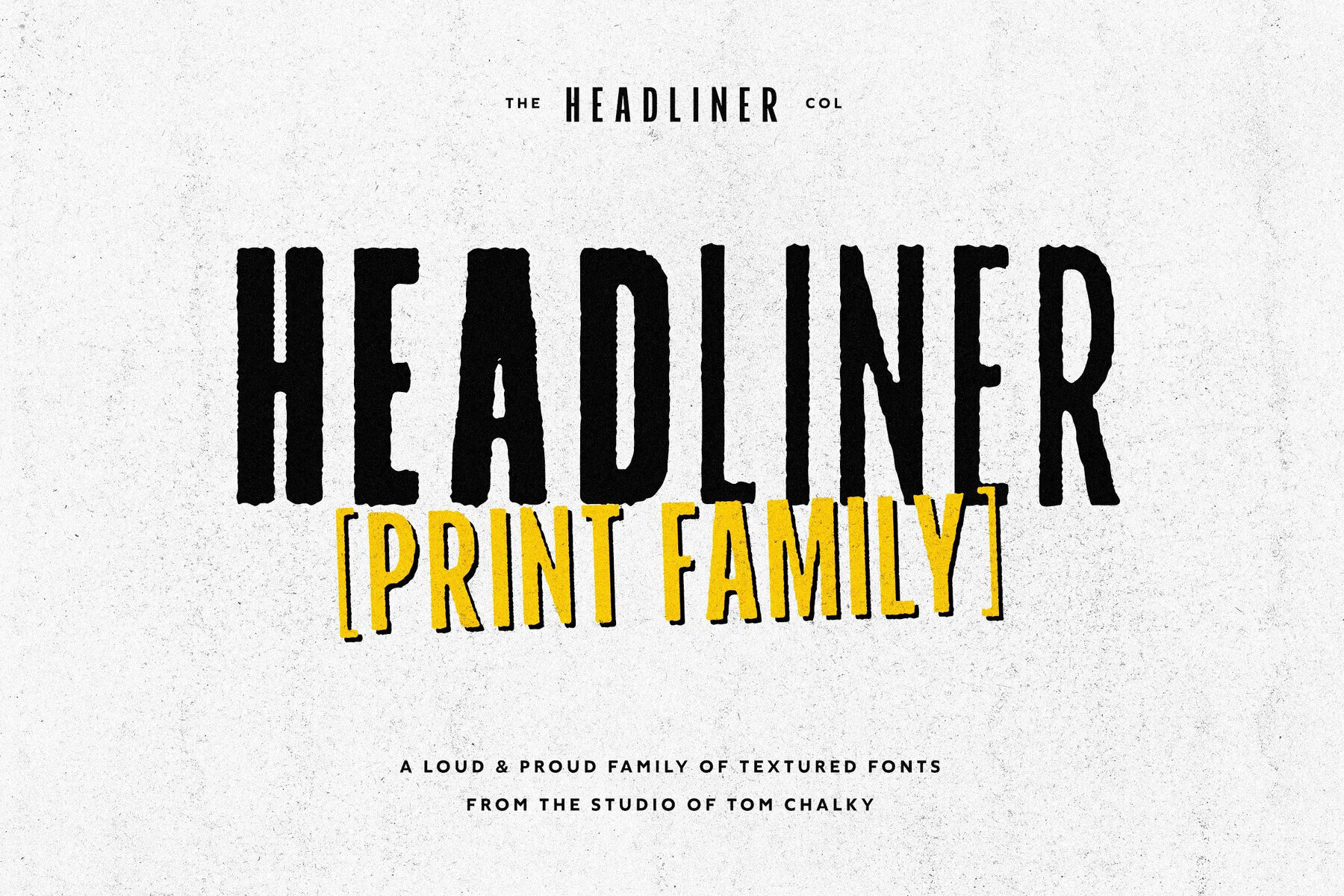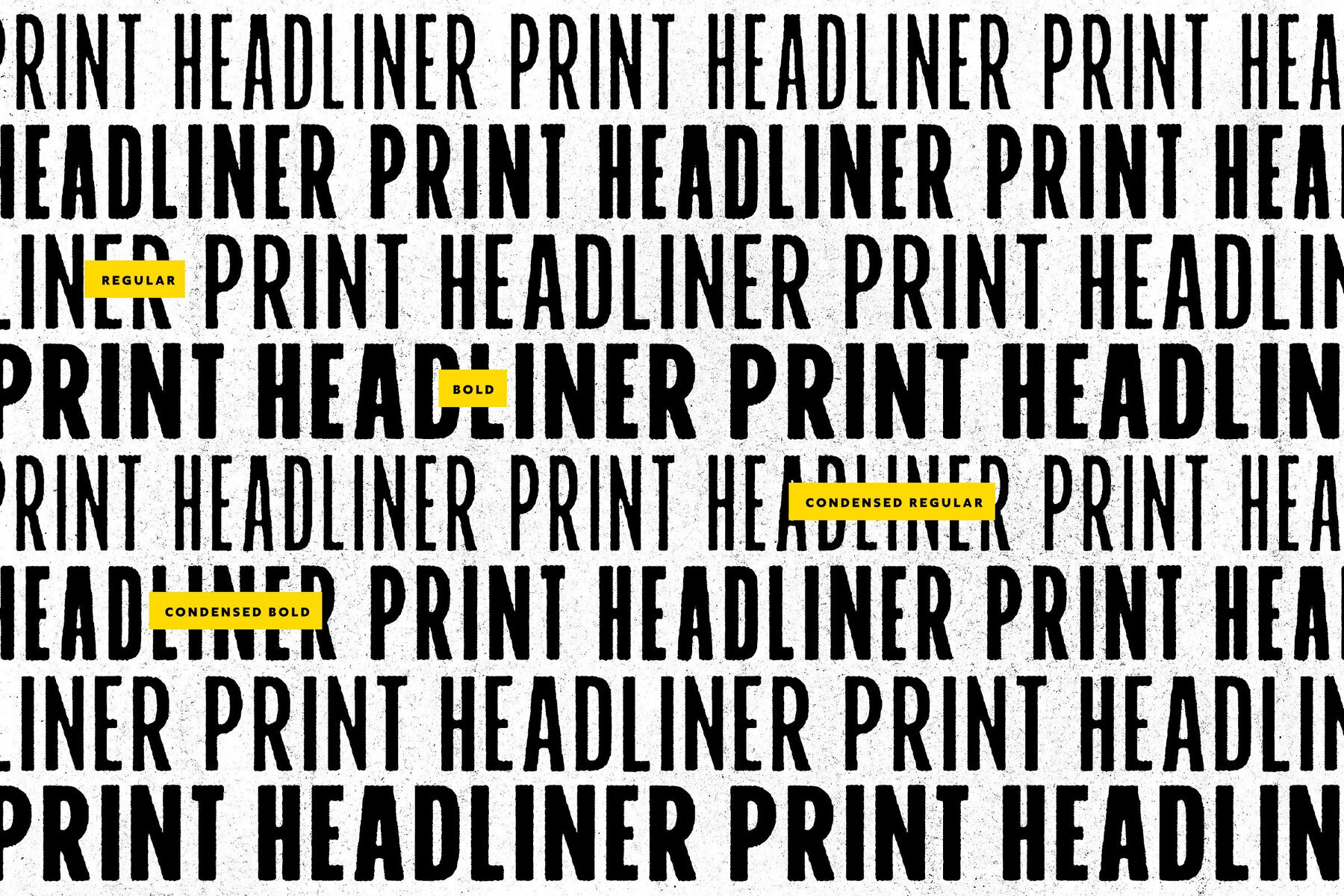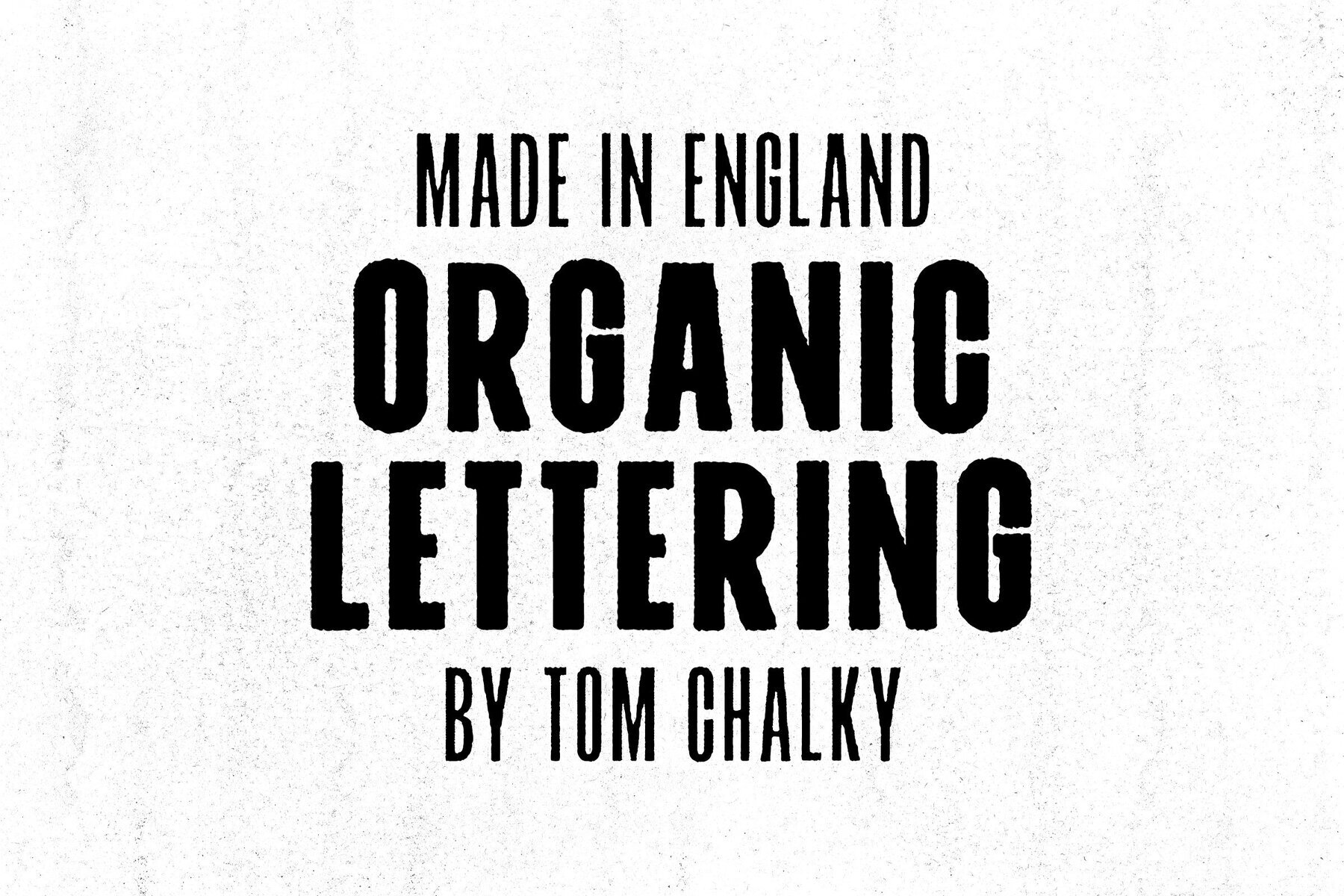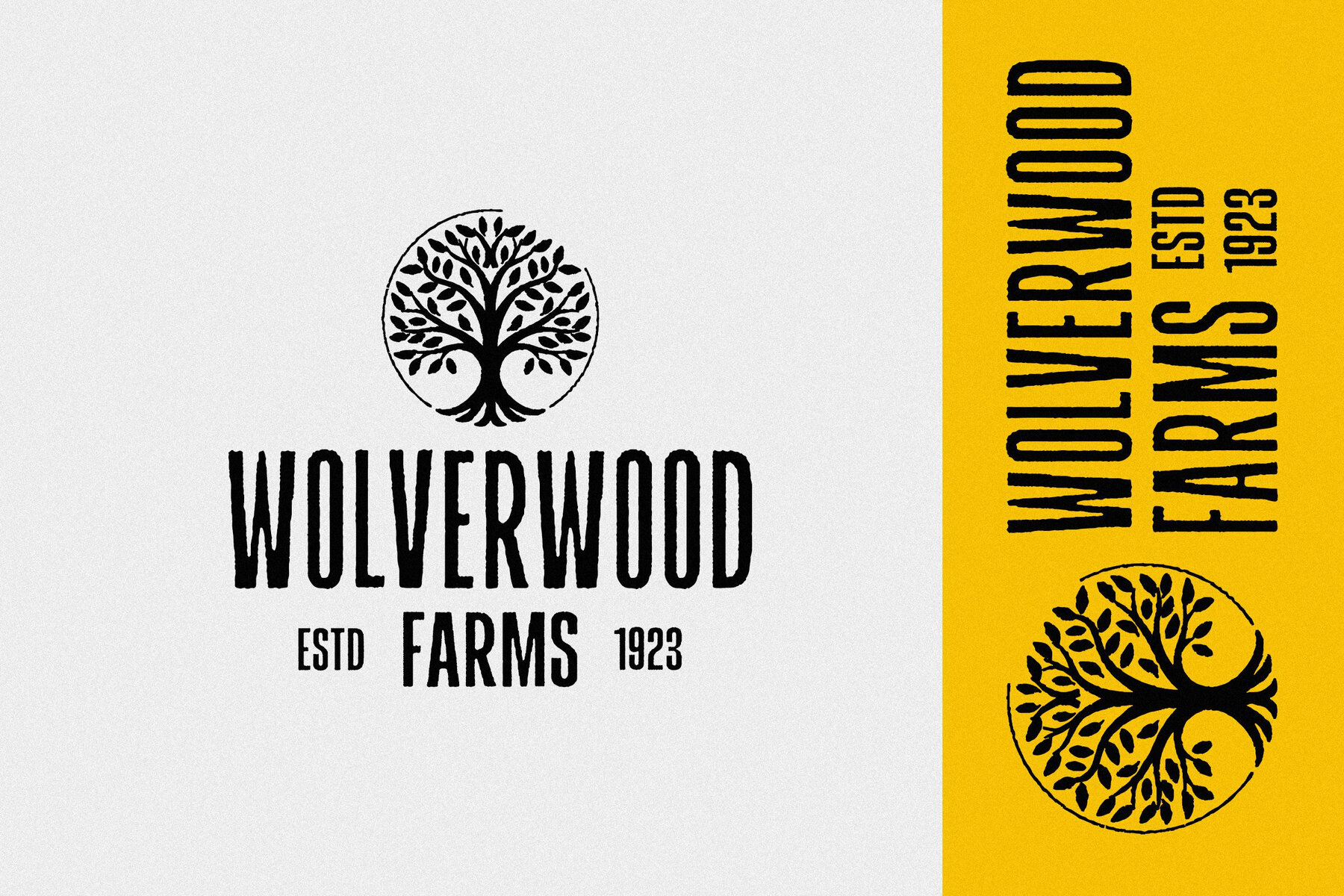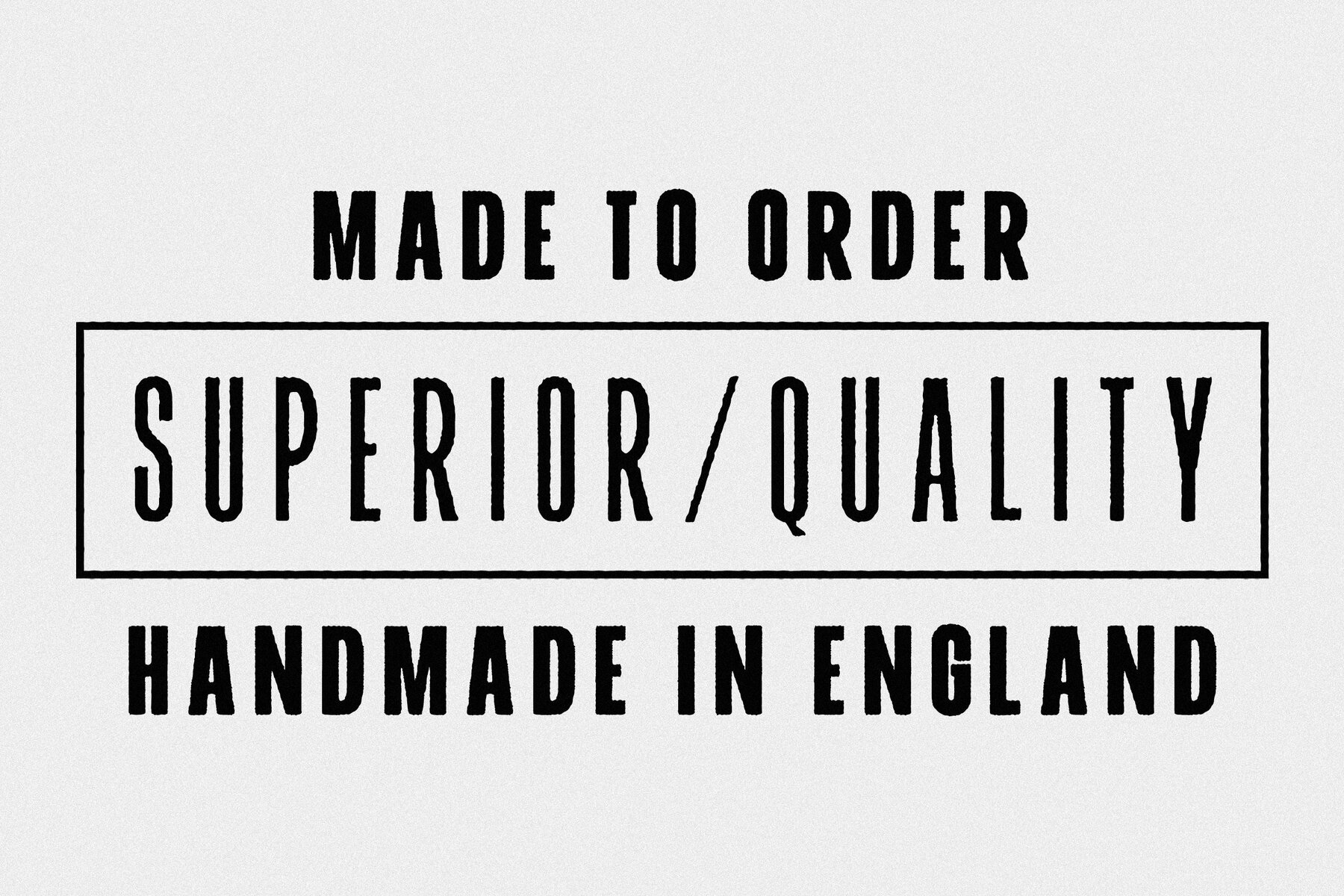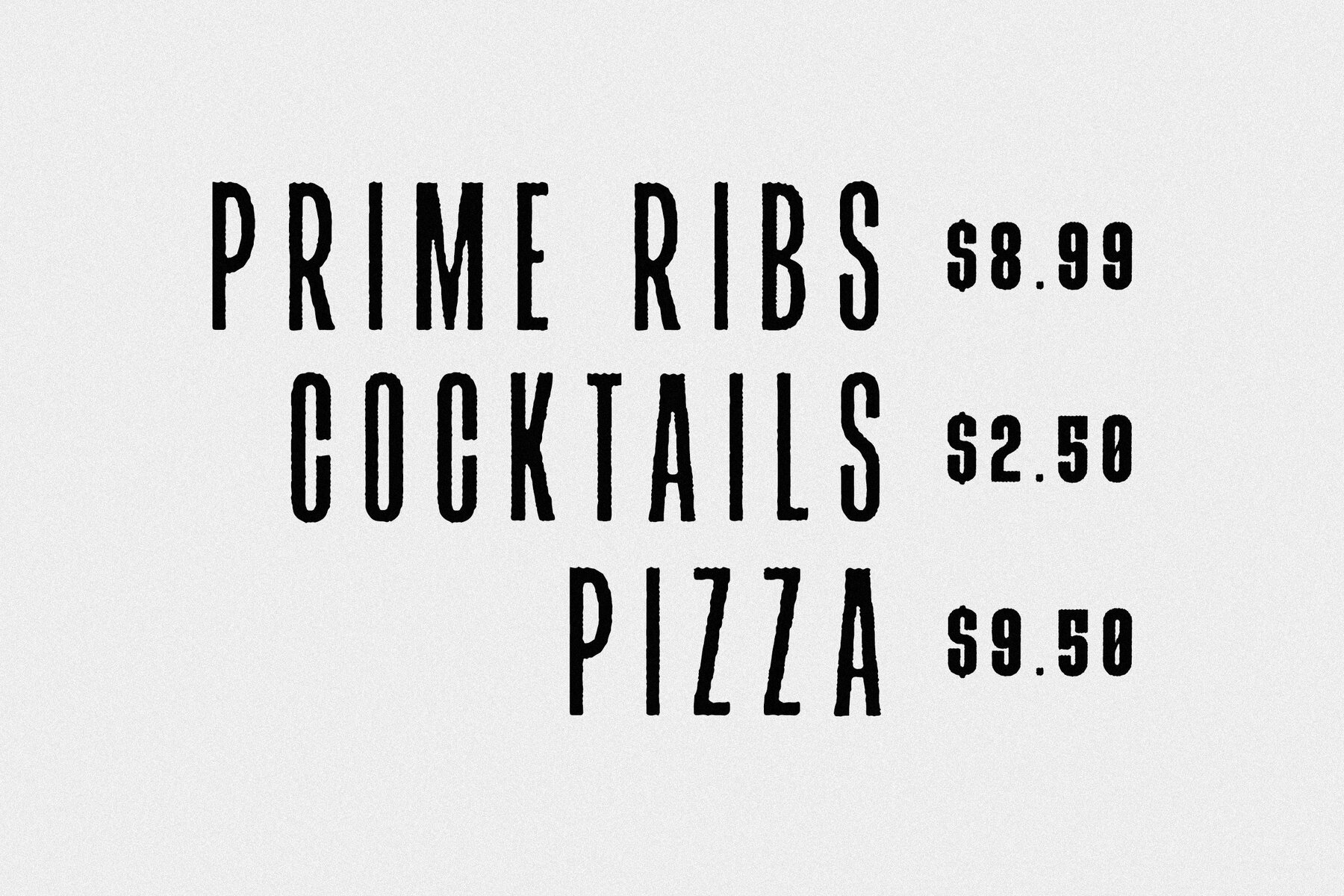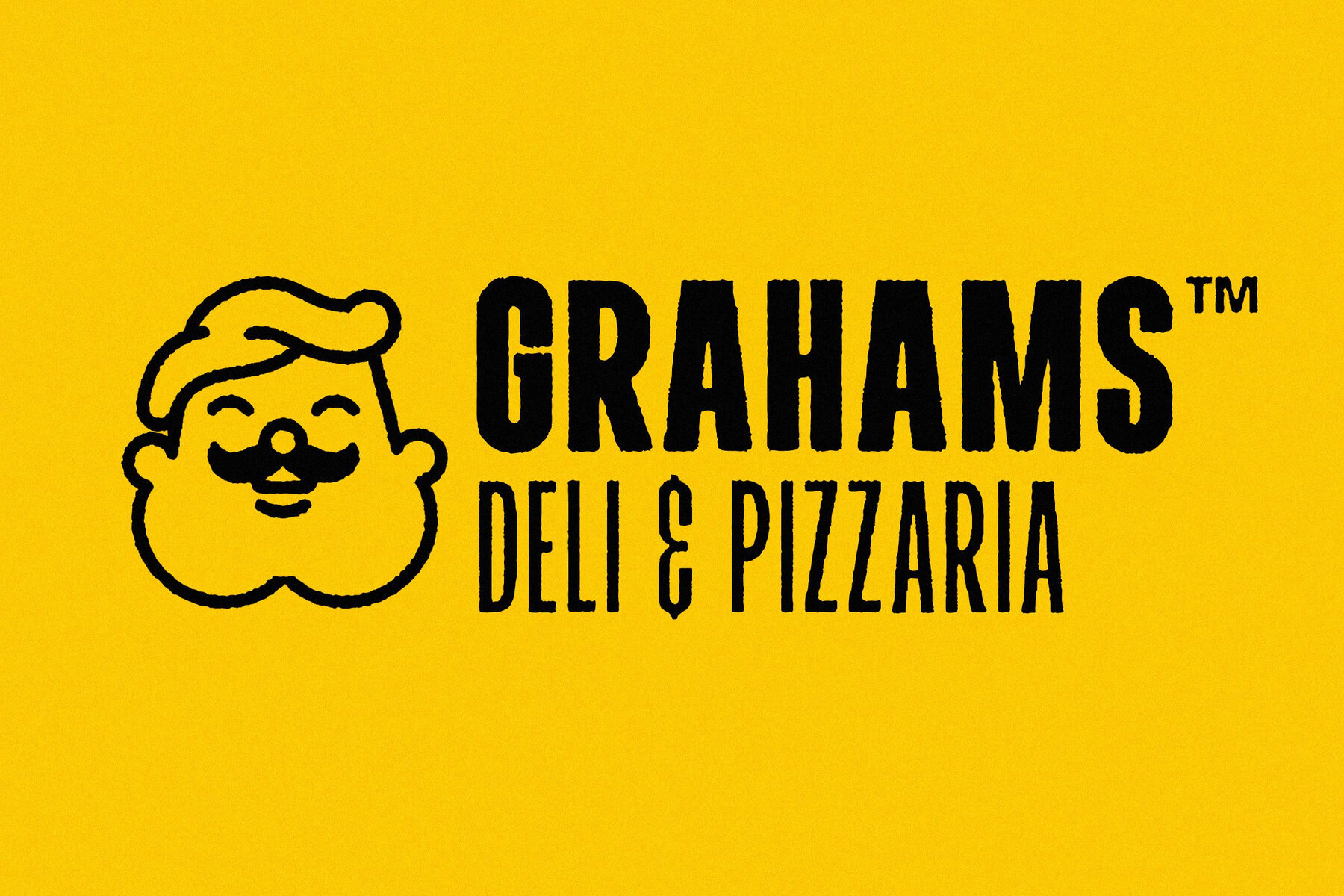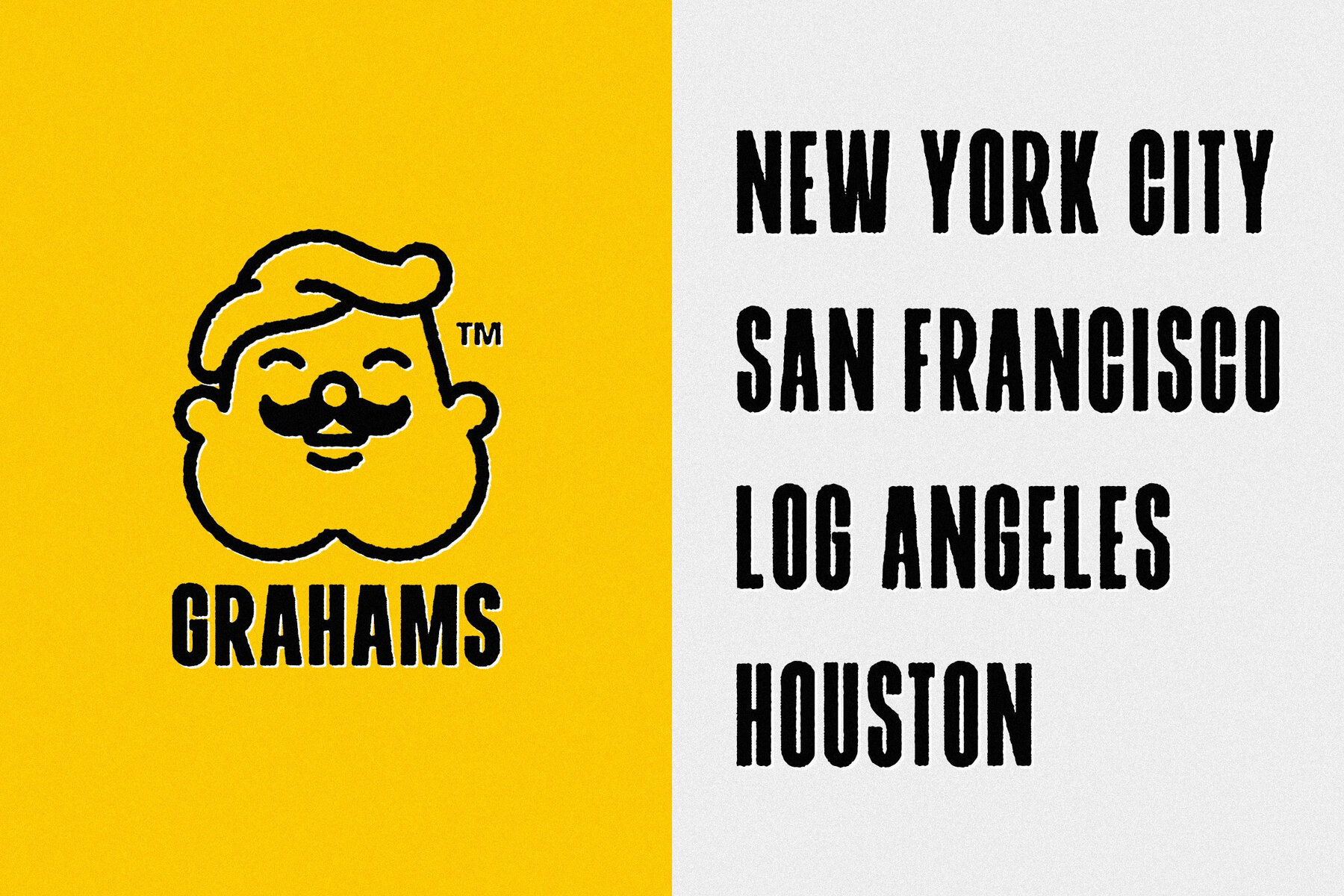
TC Headliner Print Font
The Headliner Print font family offers a captivating set of 4 display fonts crafted to seize attention in your designs effortlessly. Inspired by its namesake, this font introduces a distinct printed appearance through exquisite textures that add an authentic, tactile quality to your work. No extra steps are needed to achieve this effect, making it an ideal choice for projects requiring a bold and unique typographic presence.
Equipped with OpenType kerning and multilingual support, Headliner Print is adept at accommodating a variety of design needs. Its robust features ensure that your projects not only stand out but also communicate effectively across different languages. Whether for headlines, posters, or any creative endeavor that demands attention, this font family is designed to deliver impact from the very beginning.